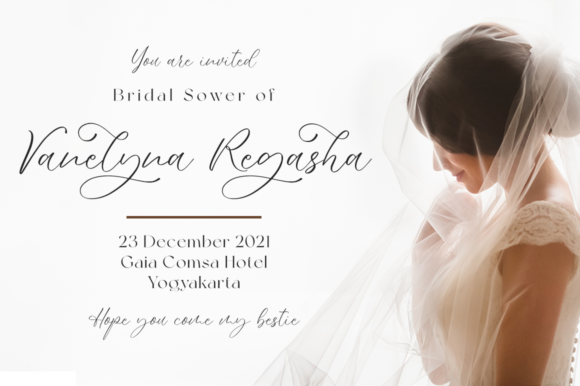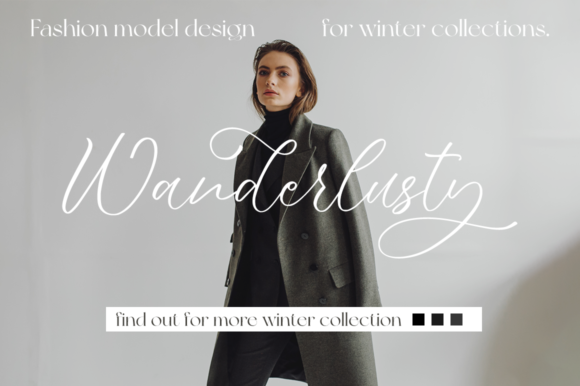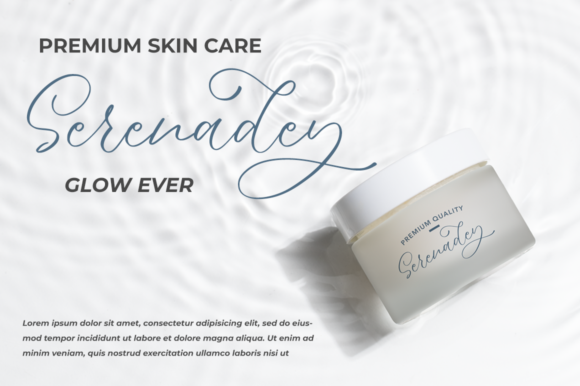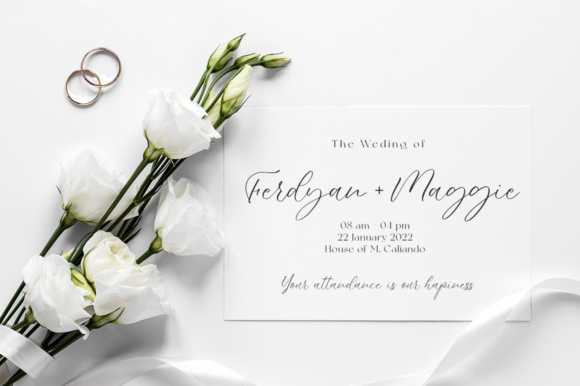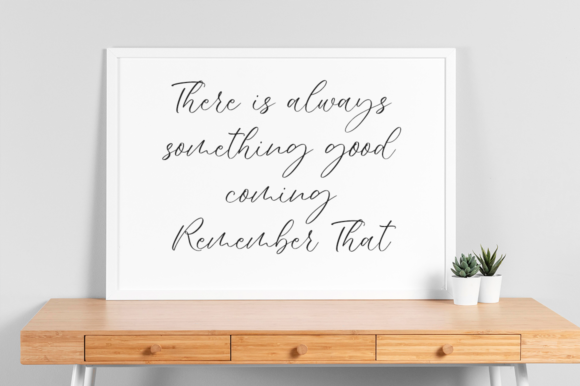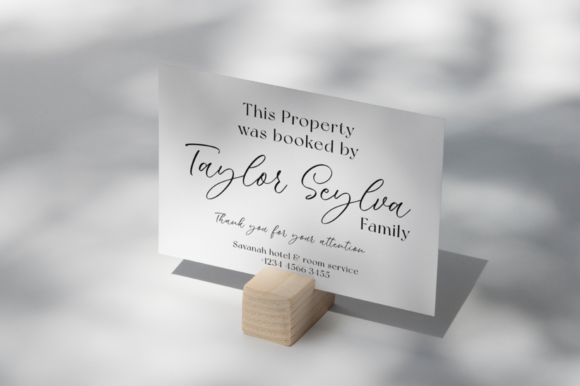
Introduction to Romeyline Font
Romeyline is a beautiful and delicate handwritten font with a unique feel and a stunning impact.
Key Features of Romeyline Font